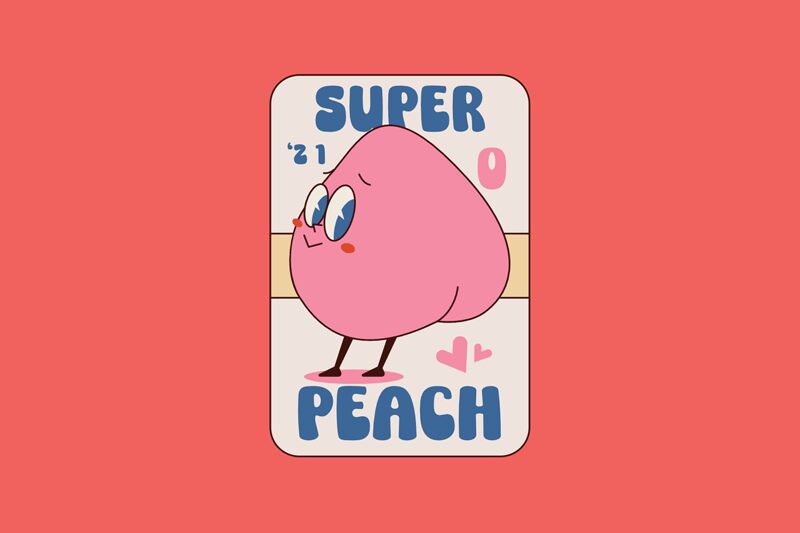
Super Peach, crafted by the inventive fsuarez913, stands as a playful and charismatic display font that immediately captures attention with its cartoon-inspired aesthetics. Its extra-bold weight commands presence on the page, while the semi-condensed width ensures a friendly yet impactful visual punch. The smooth curves and buoyant character of Super Peach make it an ideal choice for projects requiring a touch of whimsy without sacrificing legibility.
The font's jovial nature is perfectly suited for children's books, animated movie titles, or any creative endeavor aiming to evoke fun and excitement. Super Peach's distinctive style could also lend a quirky edge to branding materials and packaging designs that wish to stand out in a crowded marketplace. With its inviting appeal and versatile display capabilities, Super Peach is poised to bring energy and personality to various design projects.